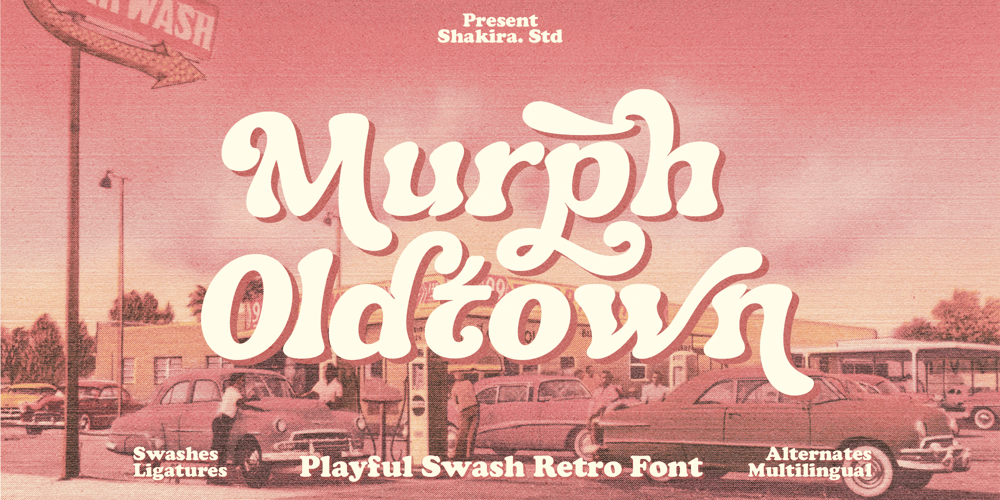
Murph Oldtown Font Family was designed by Idhham Cholid Rikzano Yahya and published by Shakira Studio. Murph Oldtown contains 2 styles and family package options. Introducing Murph Oldtown – Bold Modern Retro Serif Display Font with Unique and Stylish Alternates!Murph Oldtown isn’t just a serif font; it’s a bold statement of modernity and nostalgia, meticulously crafted to redefine retro typography. With its thick strokes and vintage-inspired display, Murph Oldtown perfectly embodies the essence of #SerifFonts and #TypographyTrends.But what truly sets Murph Oldtown apart are its unique and stylish alternates. These alternates add an extra layer of creativity and versatility to your designs, making them stand out in today’s design landscape.Join the trend towards bold and daring typography with Murph Oldtown. Elevate your designs and make a lasting impression with this mesmerizing serif font and its stunning alternates! #MurphOldtown #ModernRetroSerif #DesignInnovationHere’s what you get: Regular & Italic All Multilingual symbol Opentype features ( ligature, alternate ) Accessible in the Adobe Illustrator, Adobe Photoshop, Adobe InDesign, even work on Microsoft Word. PUA Encoded Characters – Fully accessible without additional design software. Multilingual character supports : (Afrikaans, Albanian, Catalan, Croatian, Czech, Danish, Dutch, English, Estonian, Finnish, French, German, Hungarian, Icelandic, Italian, Lithuanian, Maltese, Norwegian, Polish, Portuguese, Slovenian, Spanish, Swedish, Turkish, Zulu)Follow my shop for upcoming updates, and for more of my workThank you!